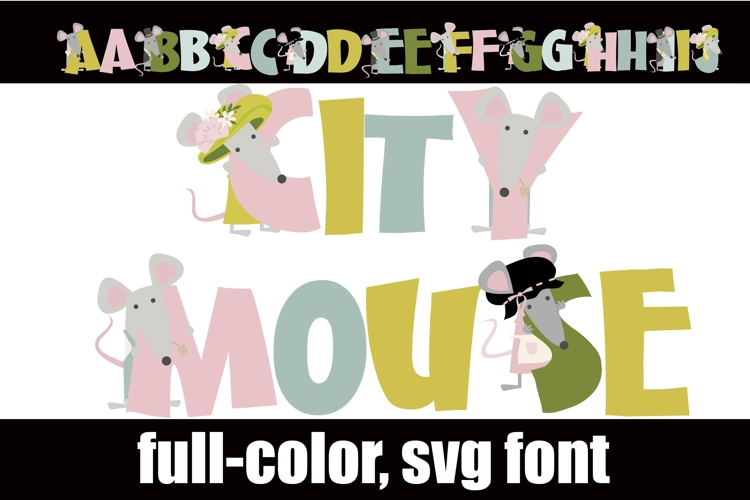
City Mouse Color Font
This full-color, whimsical font is a whimsical sans serif with mice on the uppercase. There is an alt case of additional colors of each letter that you can access through your system's character map.